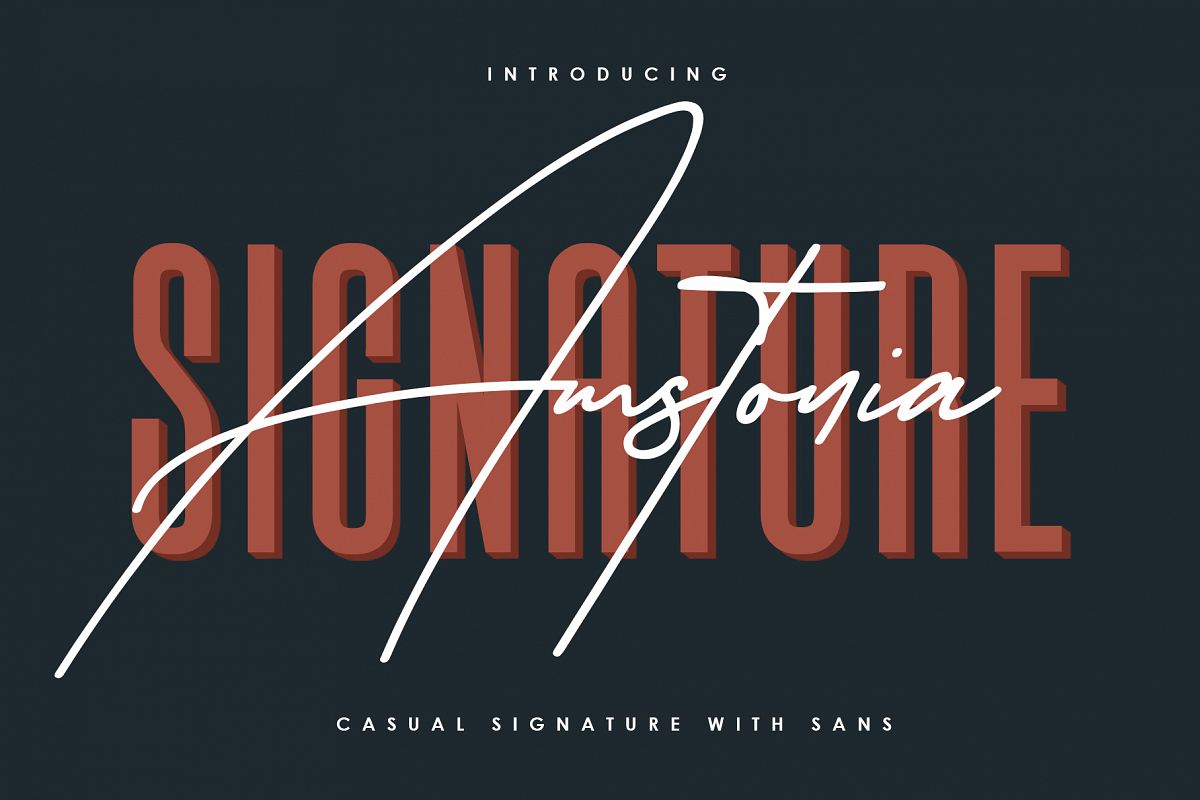
Give your designs an authentic handcrafted feel. "Amstonia" is perfectly suited to signature, stationery, logo, typography quotes, magazine or book cover, website header, clothing, branding, packaging design and more. Included Stylistic, Swash & Ligatures. Free Sans Serif. Use the alternates in Adobe Illustrator and Adobe Photoshop, this is the quick tutorial:https://youtu.be/sV2dpD7oTuw License: This font included for personal, commercial use, multiple projects, behalf of a client. Fonts may be printed on to products that are subsequently sold, websites and within website design. Graphics may be printed on to products that are subsequently sold when an effort is made to use them as part of a new design including a variation of other graphics or fonts. This font available on OTF & TTF.